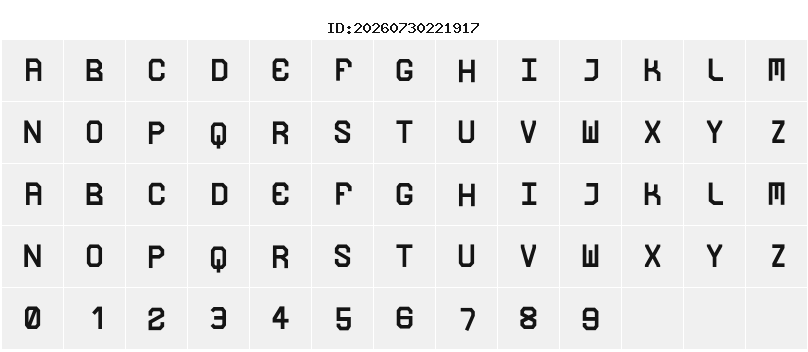
Louco Preview
• Font Name: Louco
• Designer: Ricardo Carvalho
About Louco.otf
Louco.otf is a modern, elegant sans-serif font designed for ultimate readability and visual harmony. Perfect for branding, headlines, web design, and print materials.